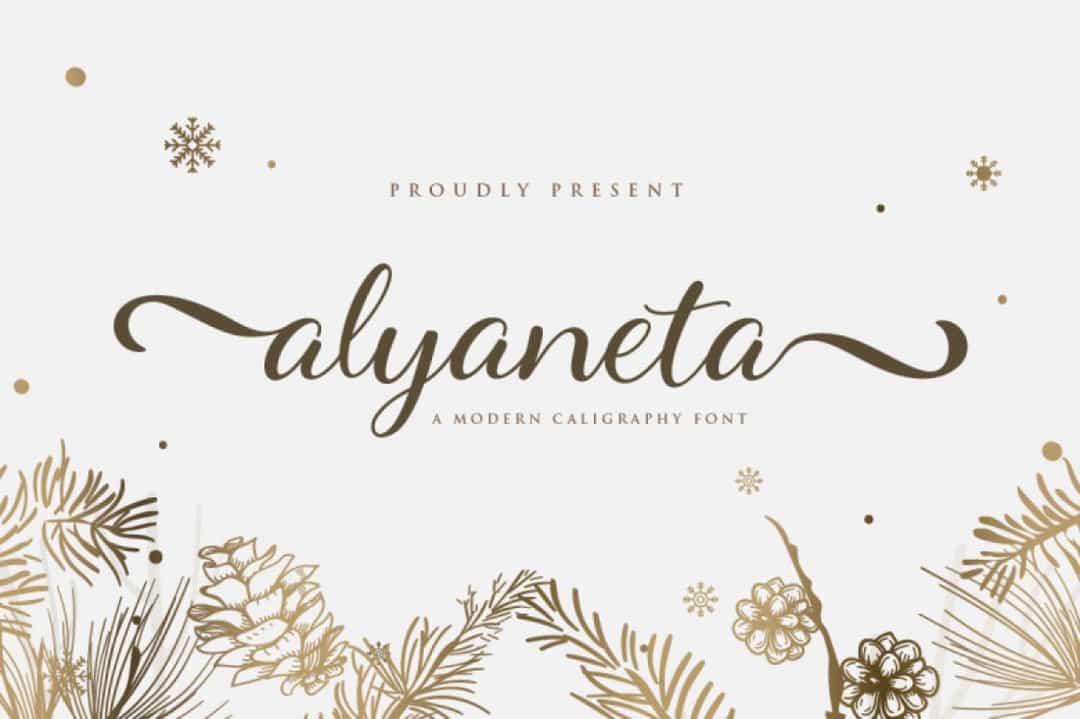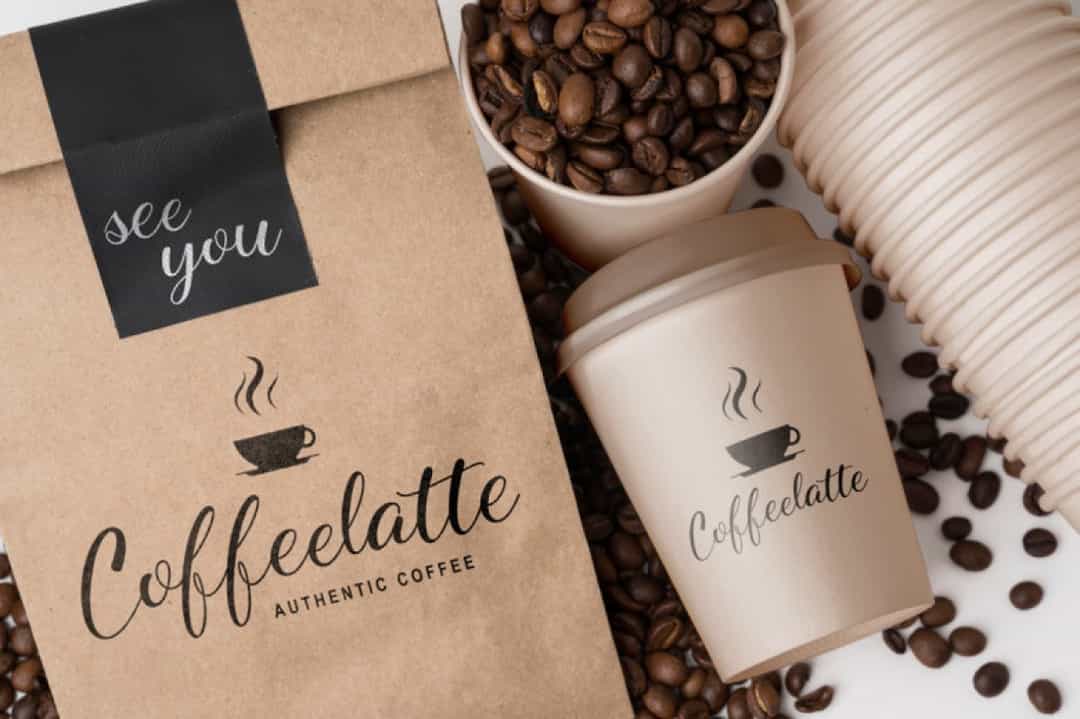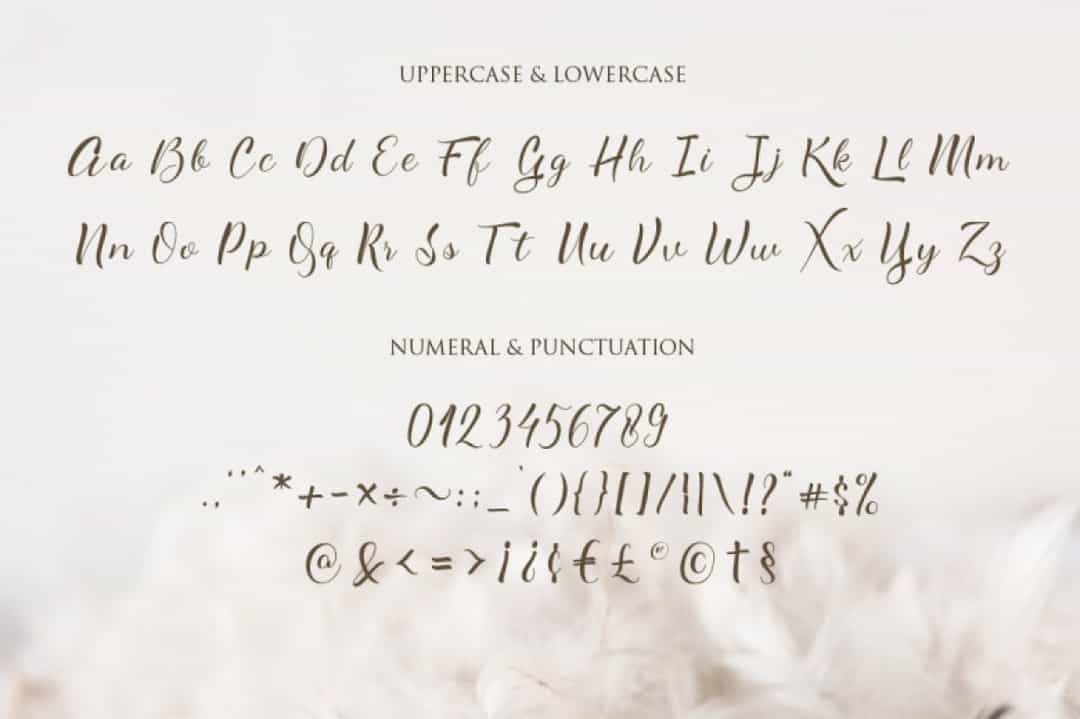
Alyaneta Font is an elegant and romantic calligraphy font with characters that move along the bottom, adding luxurious flair to any design project. Plus, its PUA encoded capability means you’ll gain quick access to its rich array of characters and ligatures!